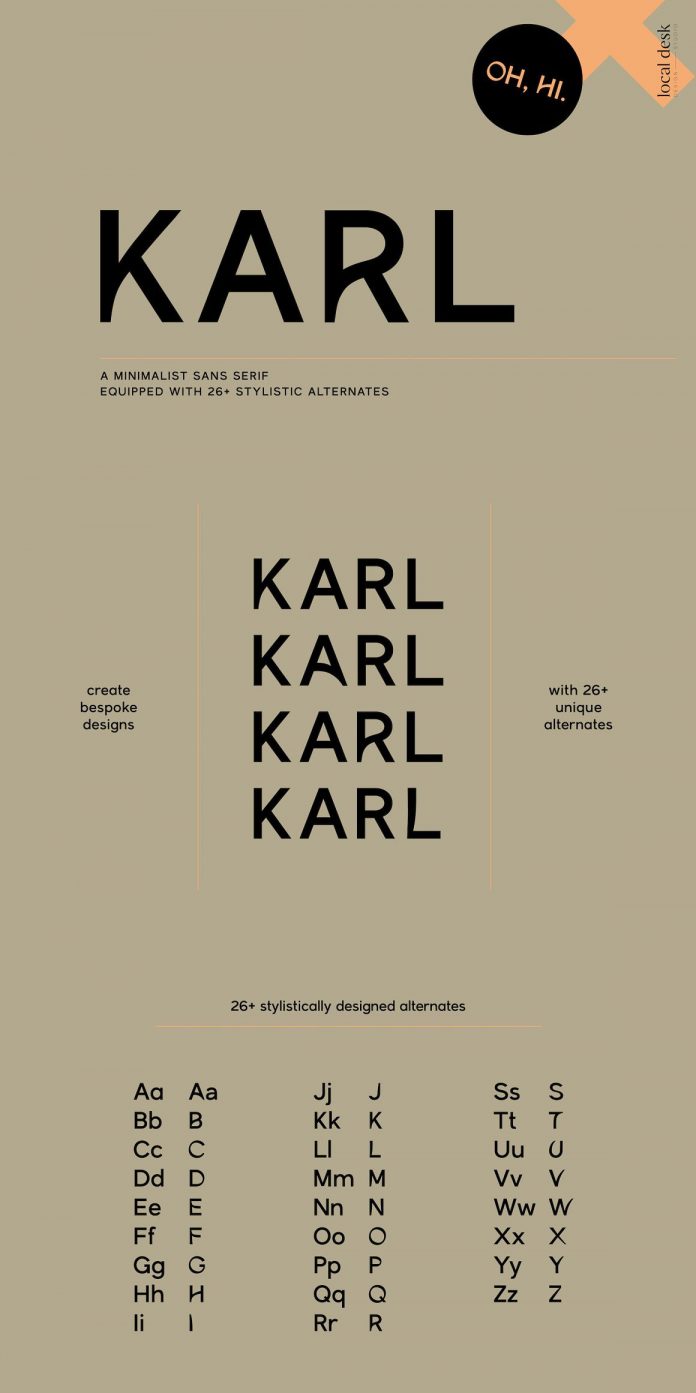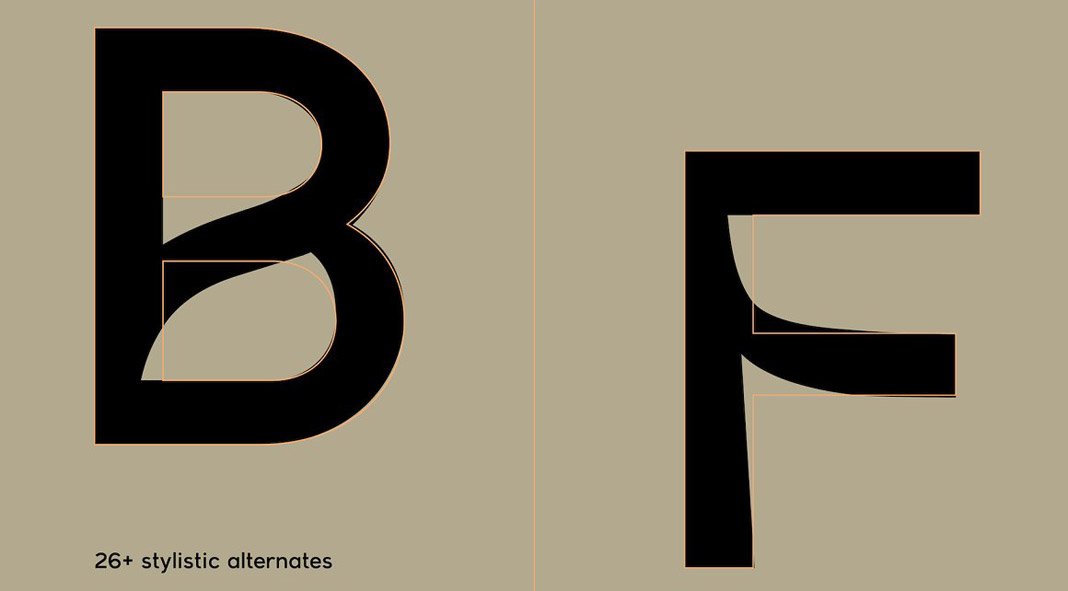
Take a look at the Karl font, a minimalist sans serif typeface for display use.
Created and published by Local Desk Designstudio, Karl is a minimalist sans serif typeface. You can use it for unique logo designs, branding, bold packaging design, powerful website headers, etc.
The Karl font comes with 26 stylistic alternates. Using these alternates, you can create diverse and totally unique typographic designs. Just click on the following link to learn more about this unique and totally minimalist sans-serif typeface.